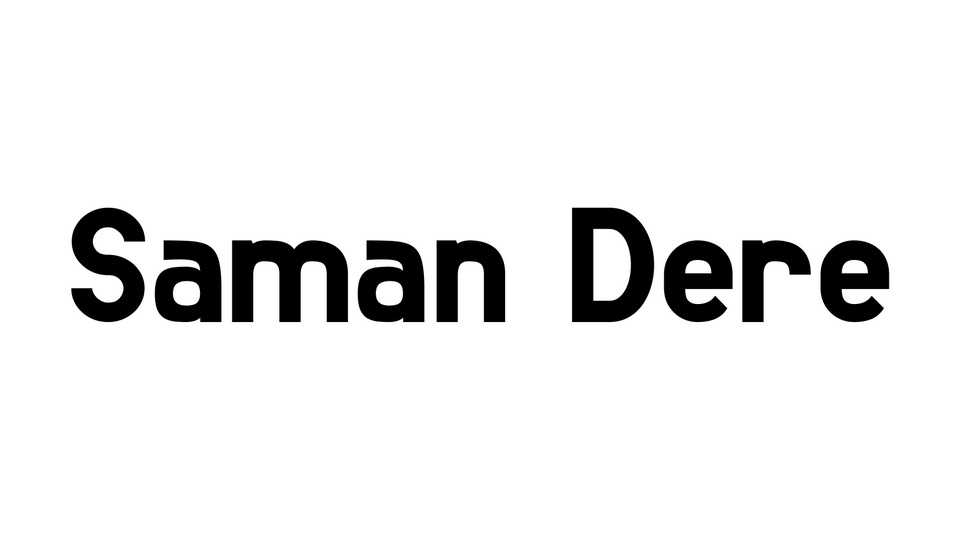
Download Saman Dere font, a medium contrast sans serif typeface especially created for web use. The old newspaper headlines and characters inspired its model and are arranged in accordance with digital screens.
Designer: Tuna Çağlar Gümüş